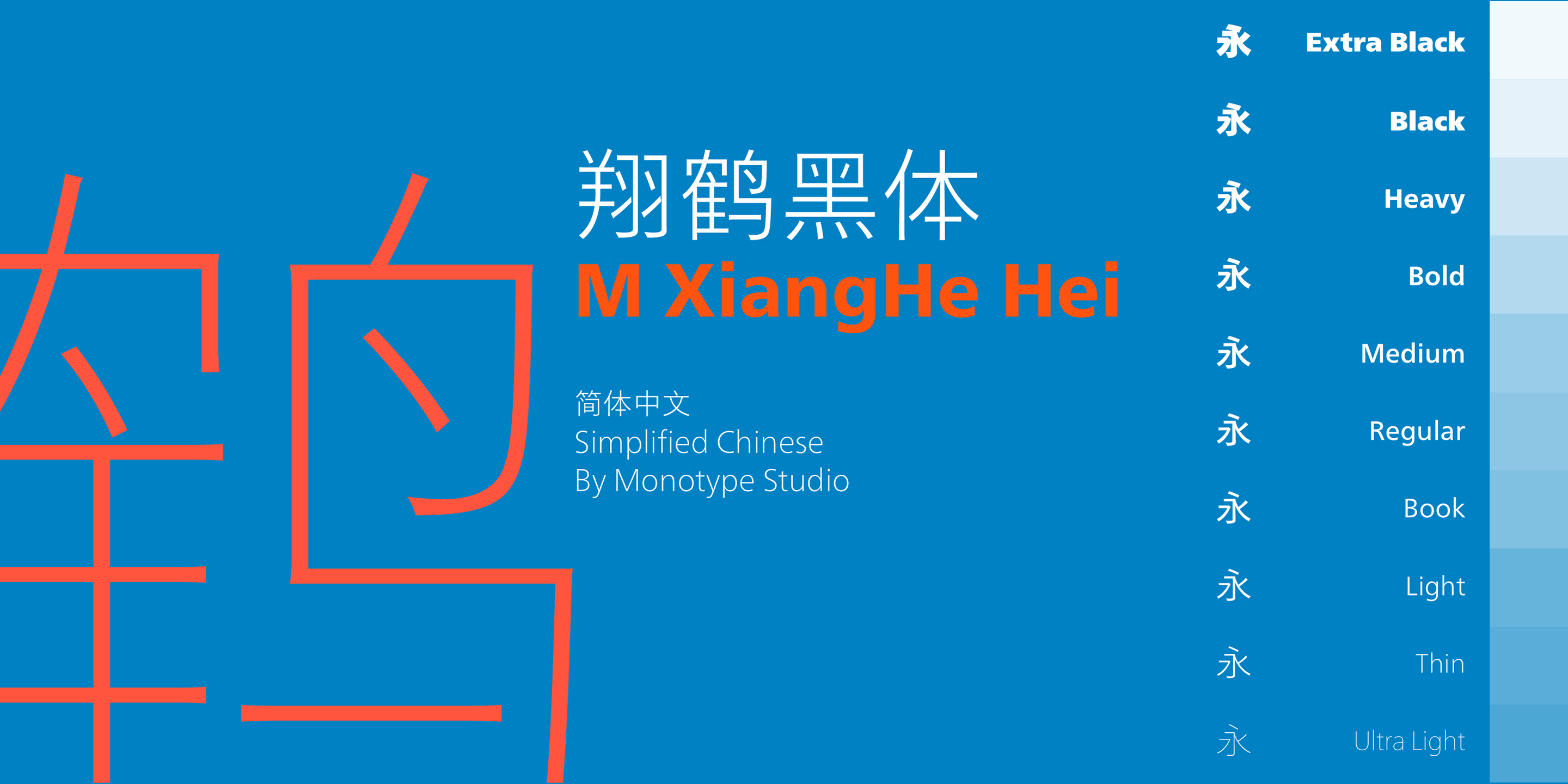
M XiangHe Hei SC Std Font is a clean and versatile sans-serif typeface designed especially for East Asian scripts, making it ideal for multilingual branding, editorial layouts, digital interfaces, and packaging.
What makes M XiangHe Hei SC Std Font Free Download so exciting is its perfect balance between simplicity and readability, with smooth strokes that enhance legibility across various screen sizes and print formats.
The M XiangHe Hei SC Std Font family typically includes several weights and styles, offering designers flexibility to create effective typographic hierarchies and consistent visual communication.
Whether you’re designing multilingual websites, corporate materials, or editorial projects, M XiangHe Hei SC Std Font Free Download ensures your designs look polished, professional, and accessible.